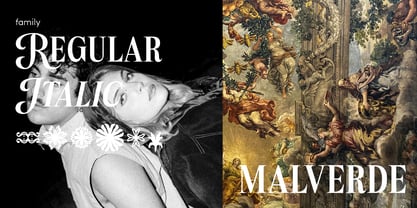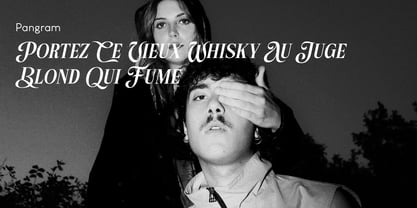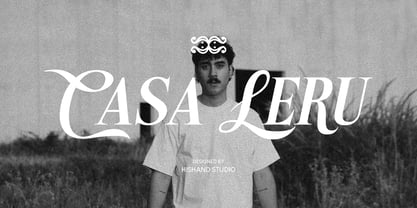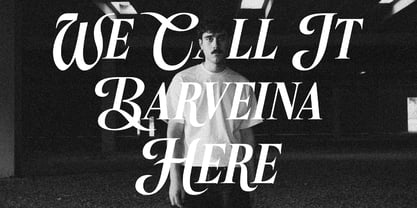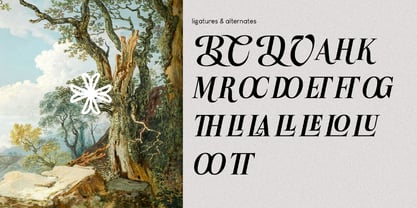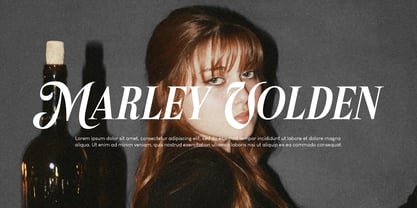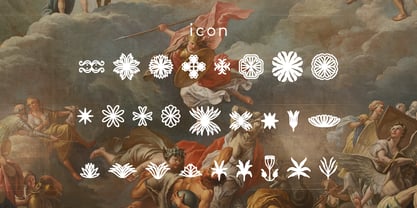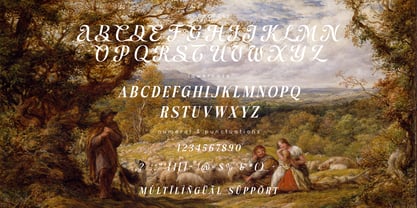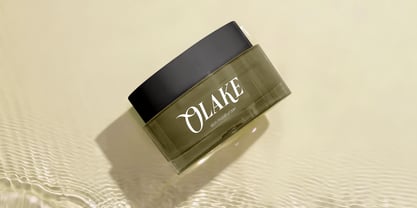
Casa Leru
by Hishand Studio
The Casa Leru Font Family was designed by Putu Dody Permana and published by Hishand Studio. Casa Leru contains 3 styles and family package options. More about this family
Casa Leru is a sophisticated typeface that strikes a flawless balance between the structured elegance of a Serif and the fluid grace of a Script. Designed to evoke a sense of high-end luxury, it merges sharp, refined stems with delicate, handwritten flourishes. This intentional contrast creates a visual rhythm that feels both architectural and organic, making it an ideal choice for brands that want to communicate heritage with a modern, poetic soul. The font’s silhouette is defined by tall, slender proportions and dramatic contrast between thick and thin strokes, capturing the "quiet luxury" aesthetic found in premium fashion and artisanal craftsmanship. Every character is meticulously crafted to look bespoke, offering a breathtakingly beautiful flow that feels like a master calligrapher’s touch on a classic printed page. Whether used for a minimalist logo or a sweeping editorial headline, Casa Leru commands attention with a whisper of timeless class. Beyond its striking letters, Casa Leru is built for seamless versatility in luxury design. From high-end packaging and jewelry branding to sophisticated wedding stationery and digital lifestyle journals, it adapts beautifully to any medium that requires a touch of prestige. Casa Leru isn’t just a font; it is a statement of elegance, designed to make every word feel like an invitation to something exclusive and extraordinary. Complete with - ligatures - alternates - regular - Italic - icon - kerning - multilingual support
Designers: Putu Dody Permana
Foundry: Hishand Studio